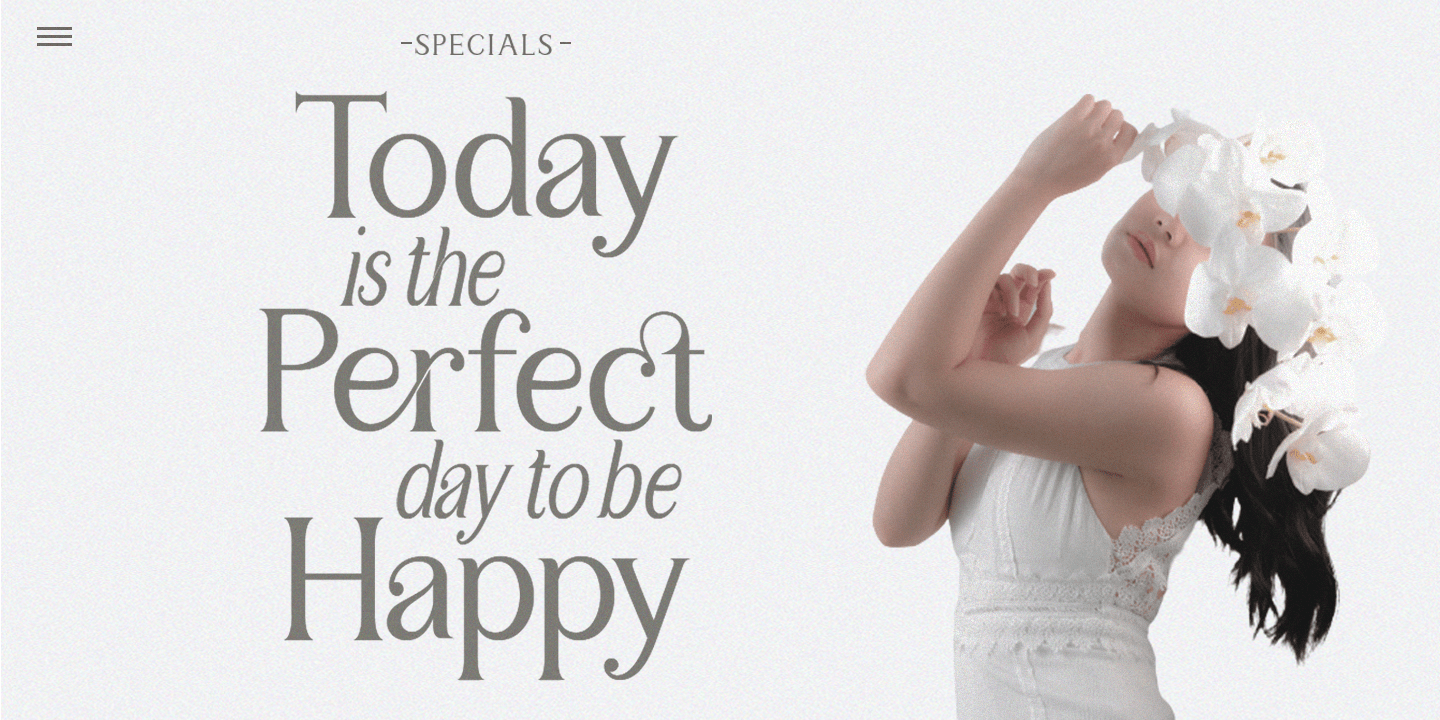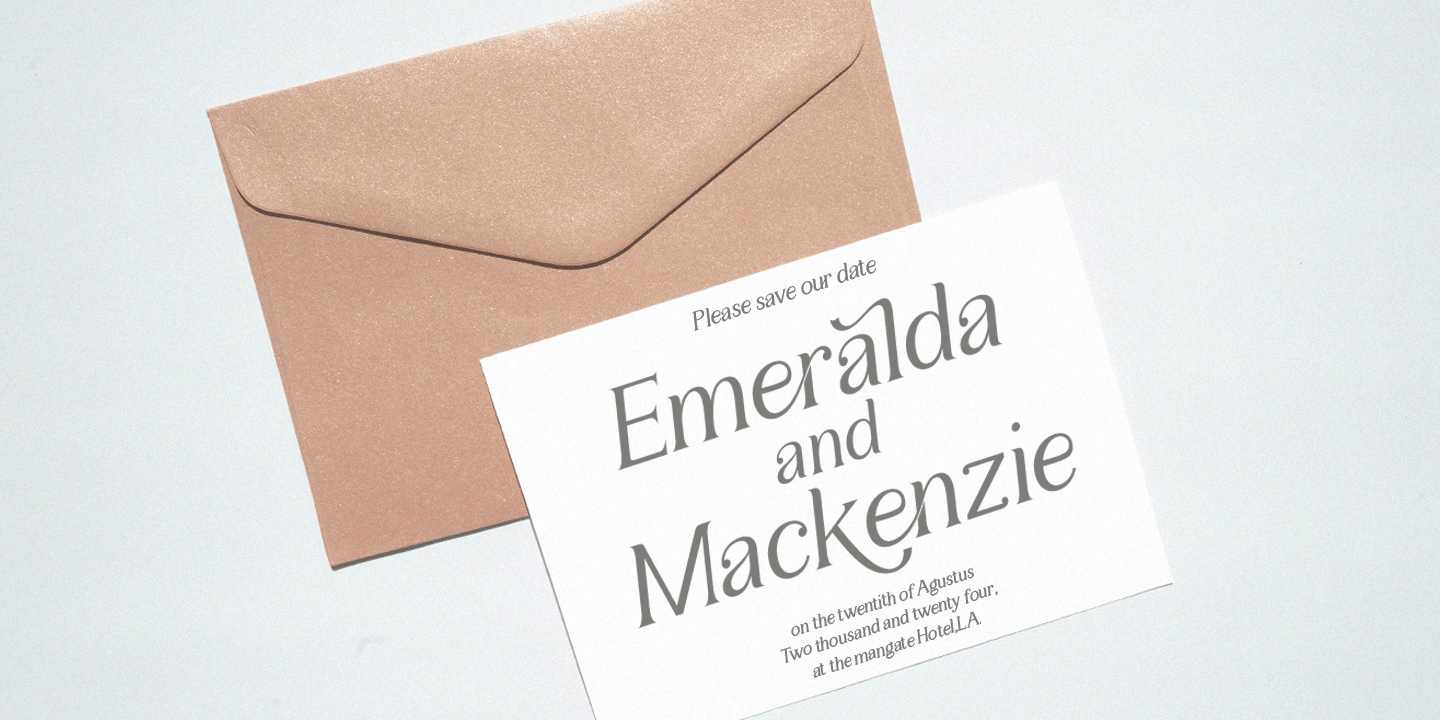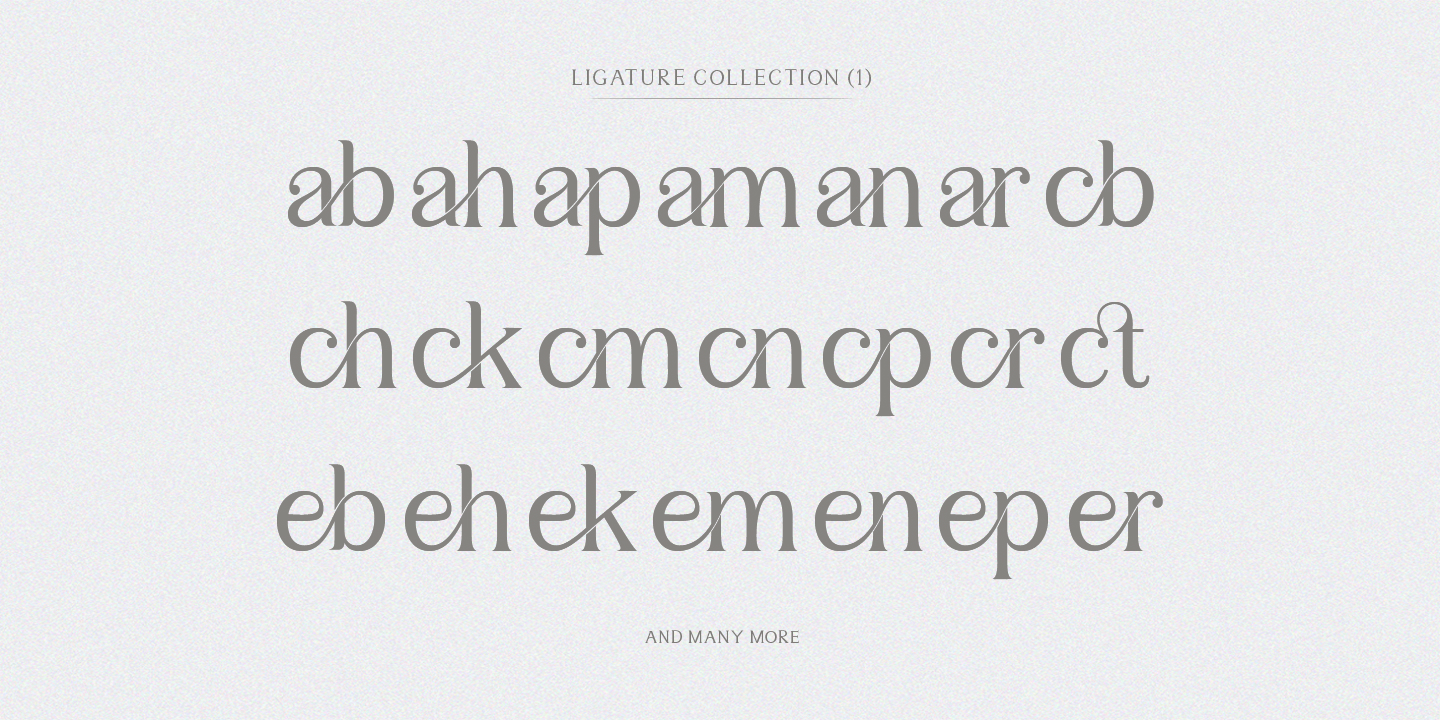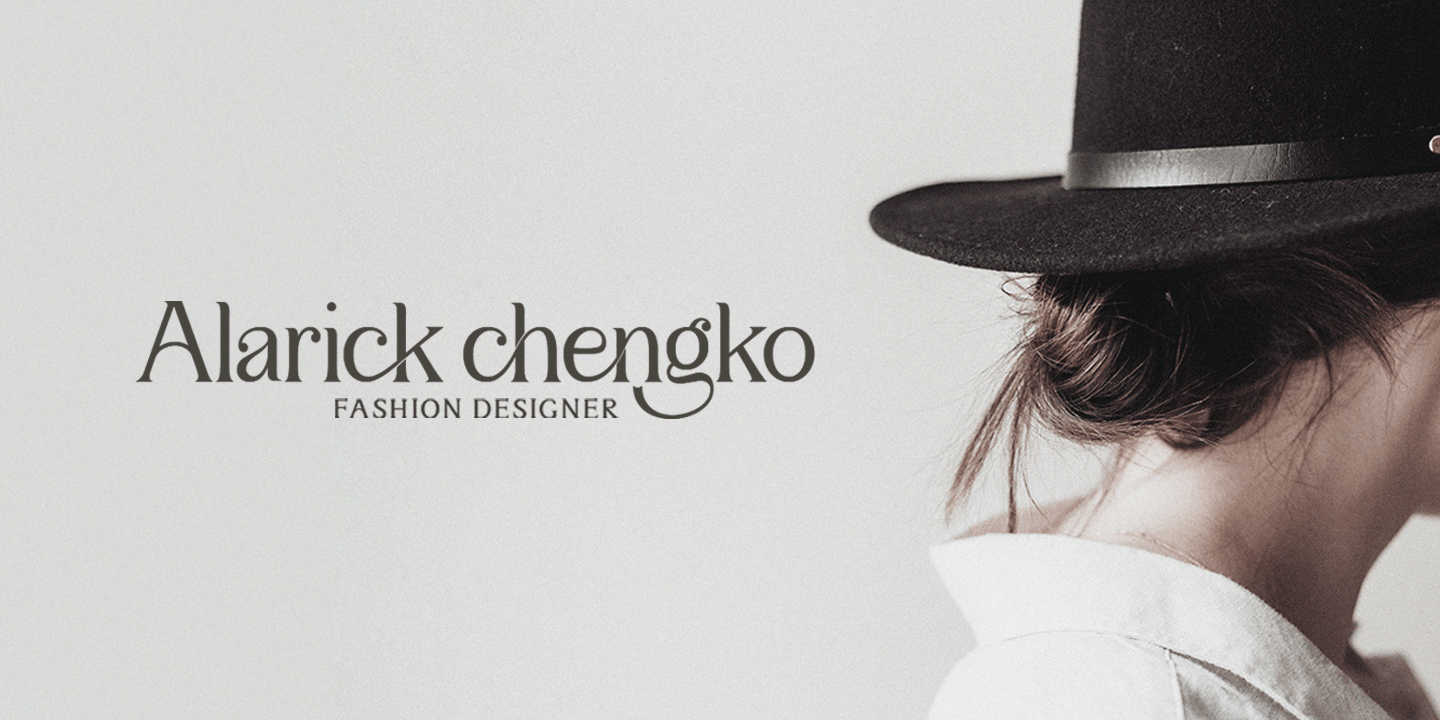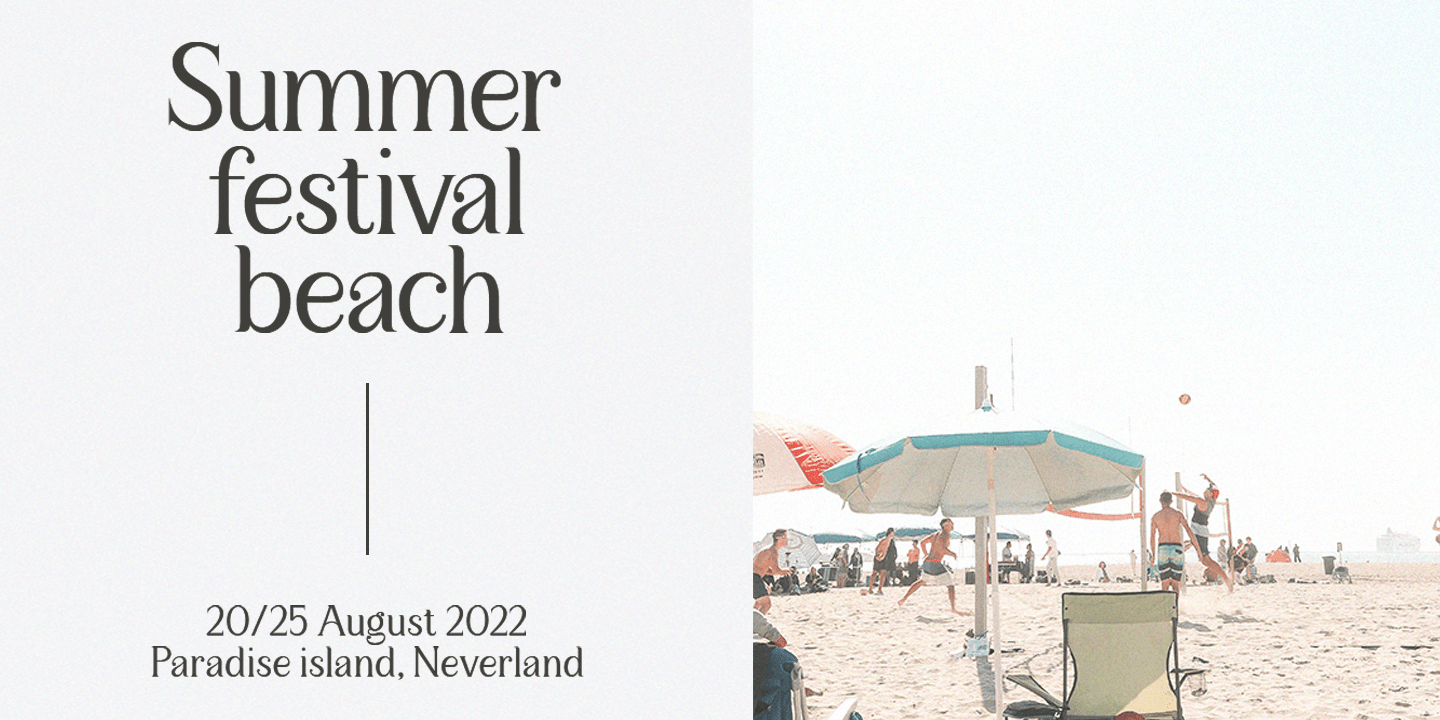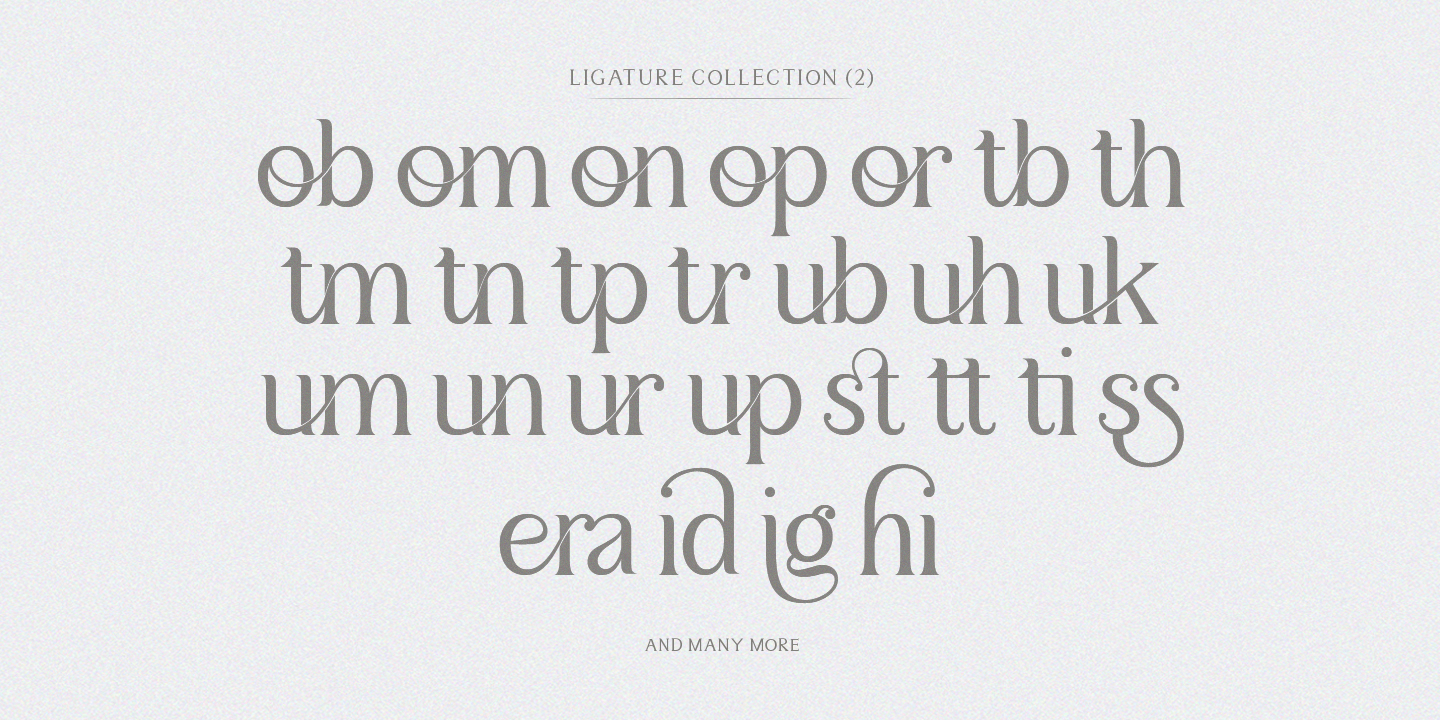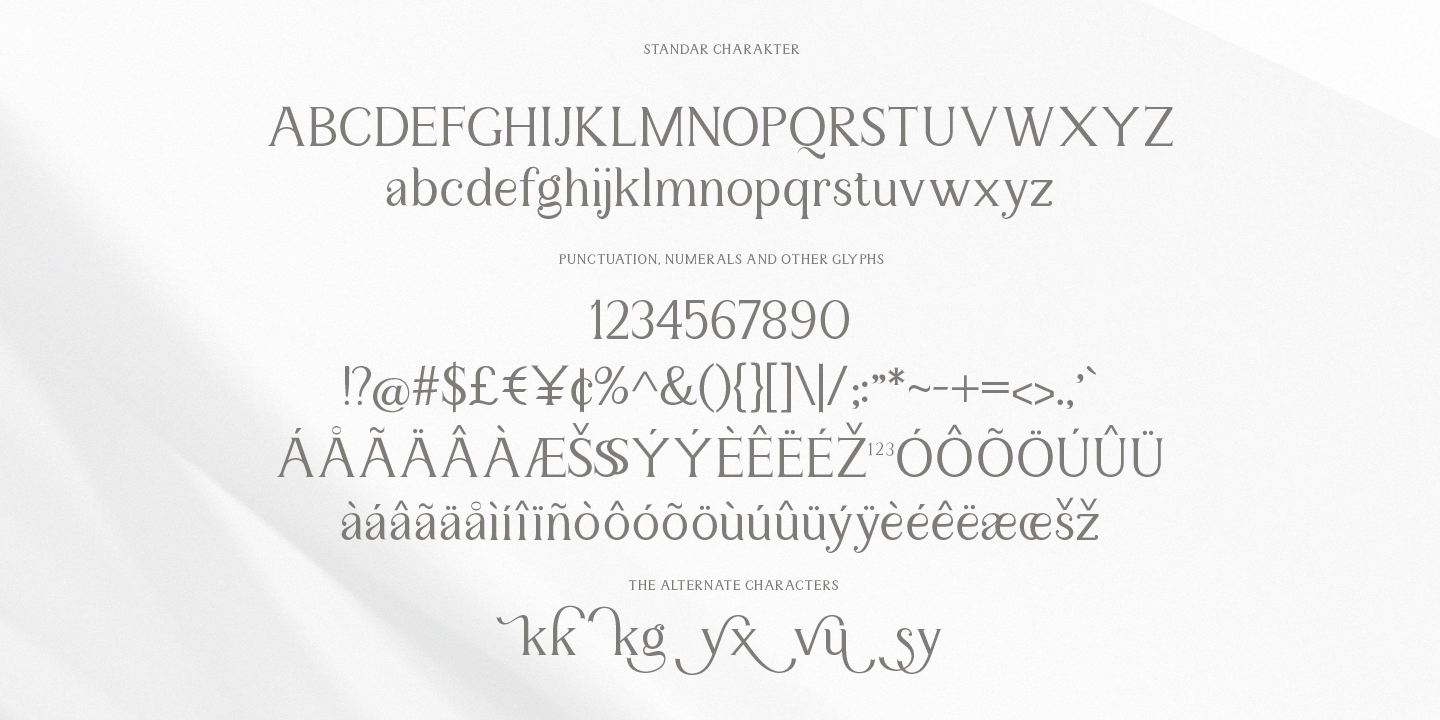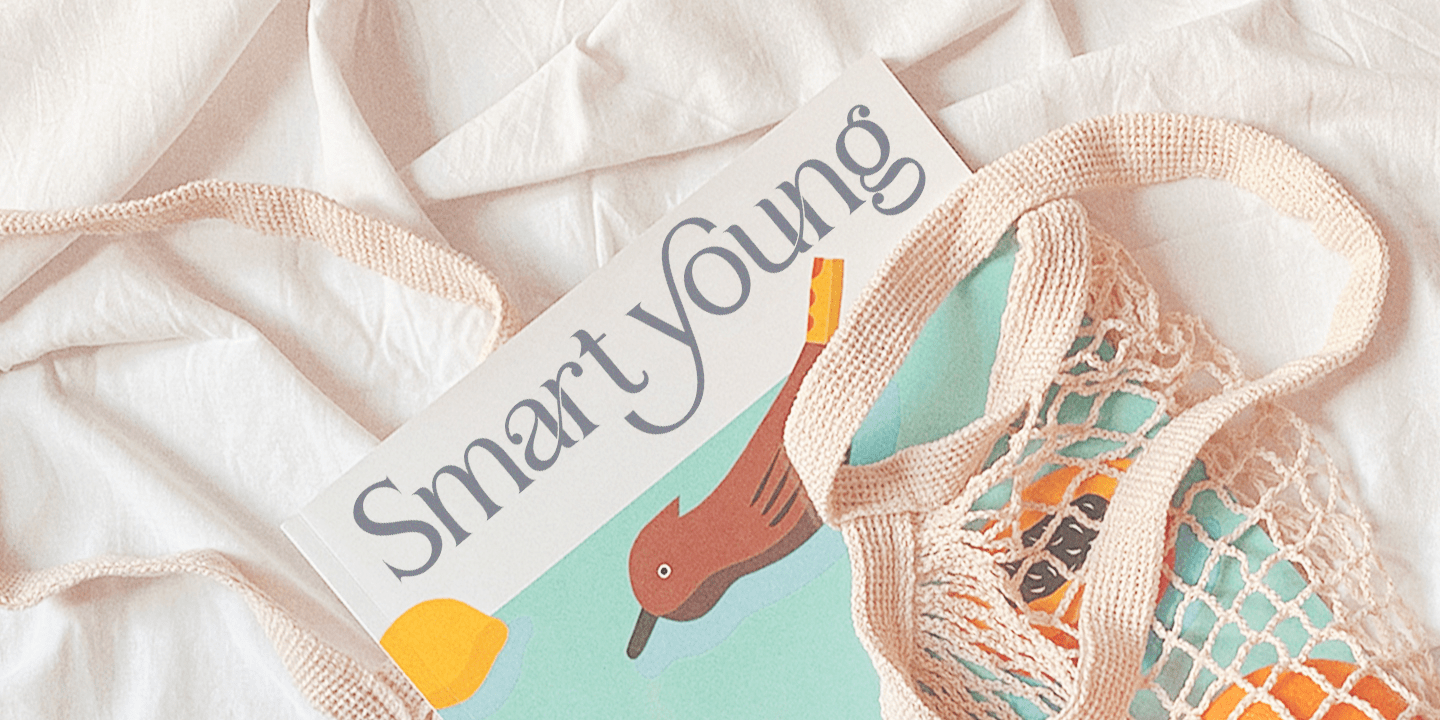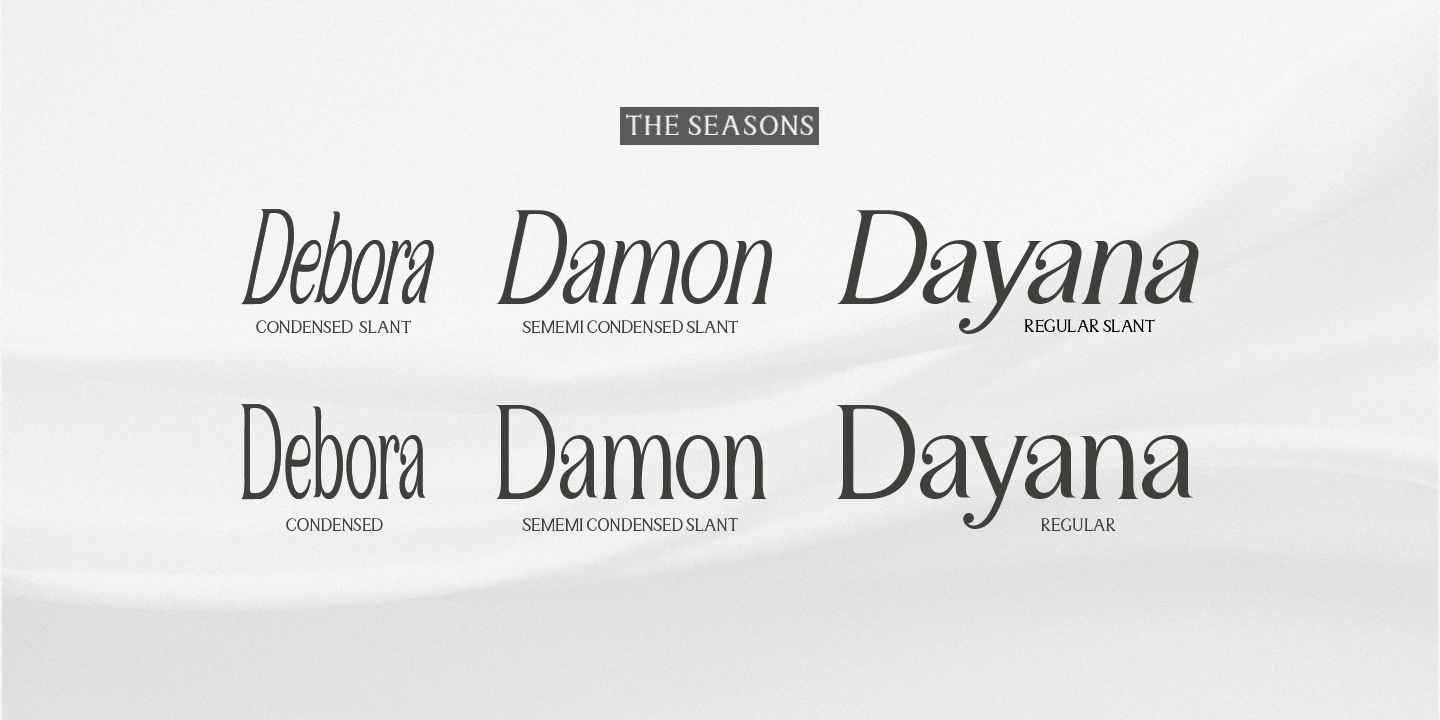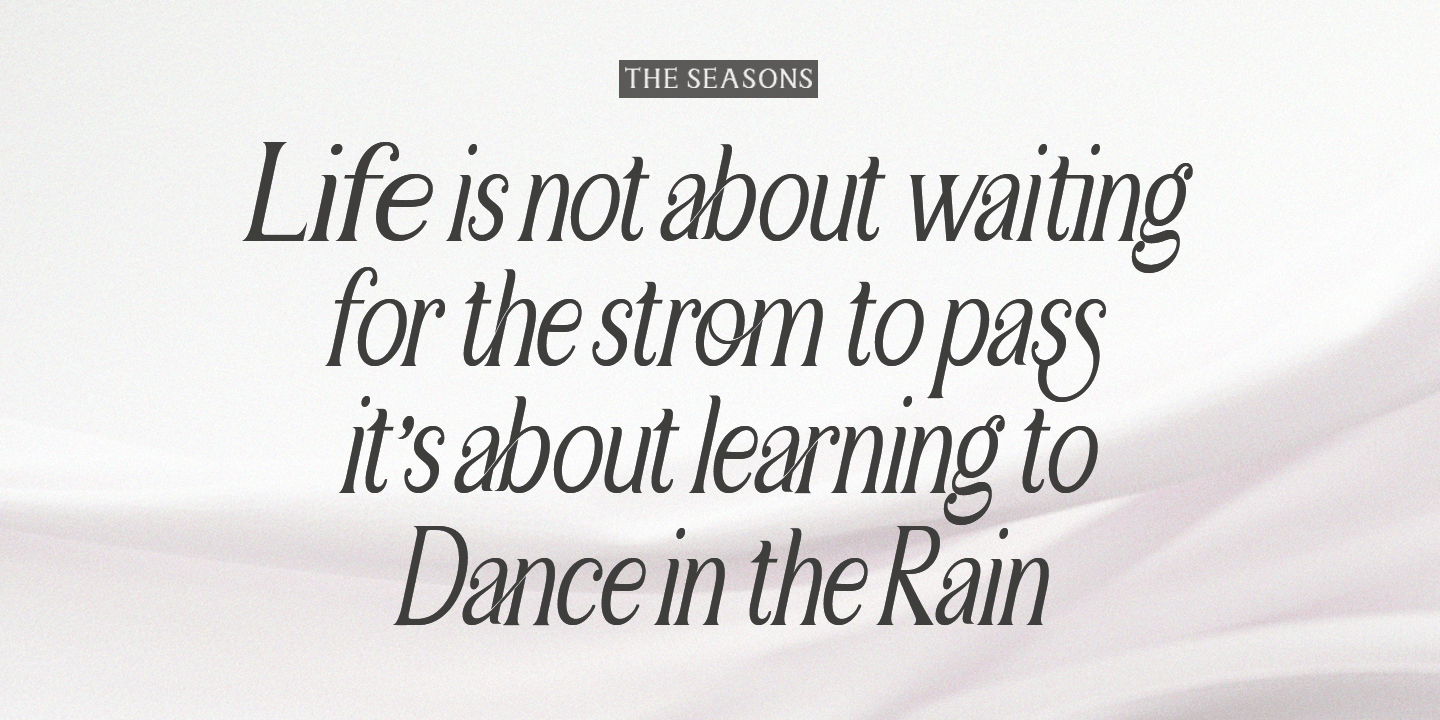
Sulangor
Sulangor is a stylish serif font rich with letters that appear to dance and spin harmoniously together to create a unique and elegant typographic design. Add this font confidently to your project and you will love the results!
A variety of style options and ligatures allow for versatile design possibilities, making it perfect for elegant branding, magazine design, logo design, headlines, posters, packaging, cards, or your wedding invitations.